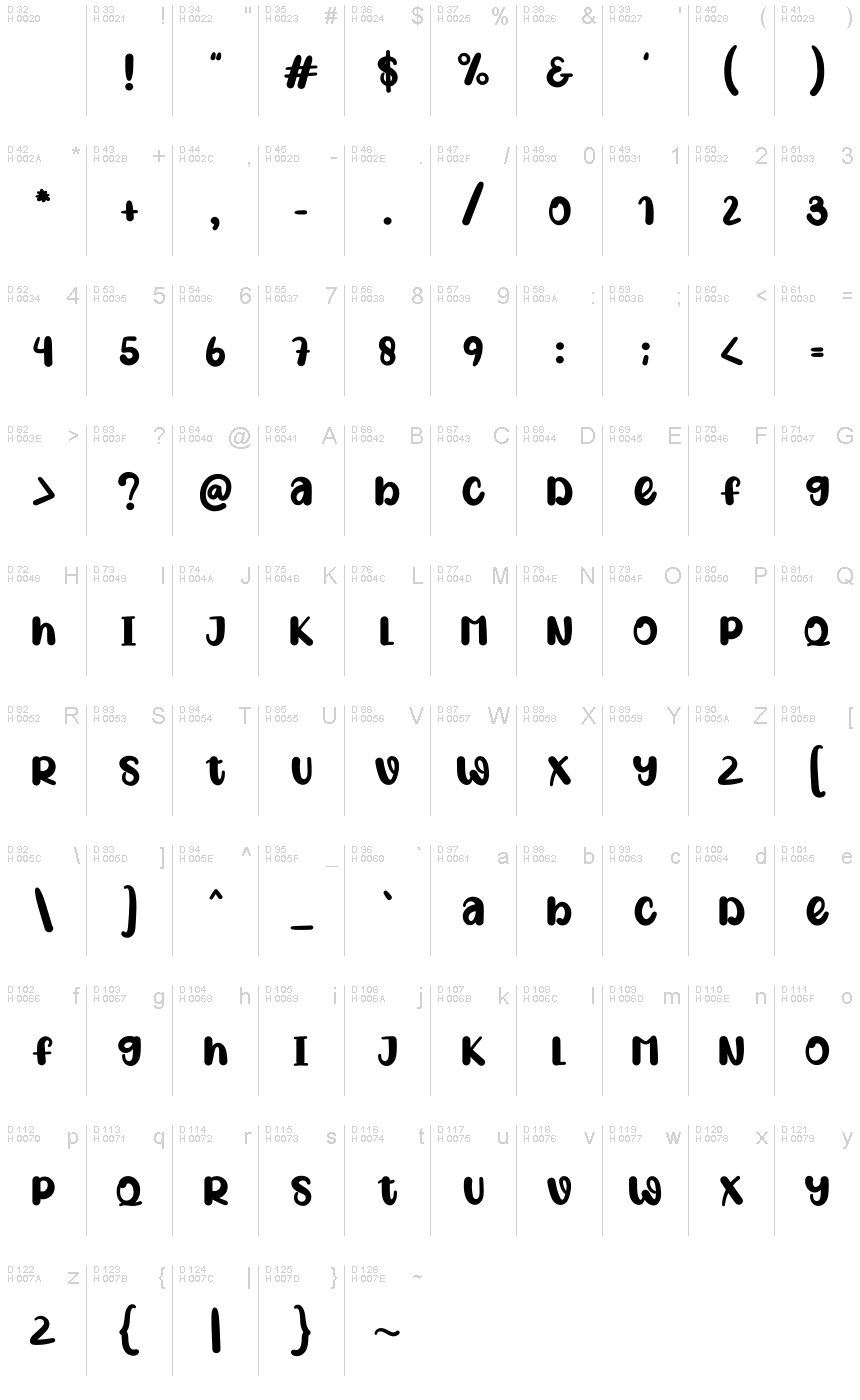
Winter Blessing
"Winter Blessing" - a sweet and friendly handwritten display font that exudes a playful charm. With its bold, brush-like strokes, this font captivates the eye, evoking a sense of warmth and whimsy. Its unique character shines through in the organic, expressive lines that dance across the page, creating a captivating visual experience.
This font is an ideal choice for projects that require a touch of personality and warmth, such as wedding invitations, greeting cards, or any design that seeks to convey a sense of joy and celebration. Its versatility allows it to seamlessly transition between formal and casual settings, making it a valuable asset in the designer's toolkit.
Whether you're crafting a heartfelt message or seeking to add a playful accent to your design, "Winter Blessing" is a font that promises to bring a touch of enchantment to your creations.